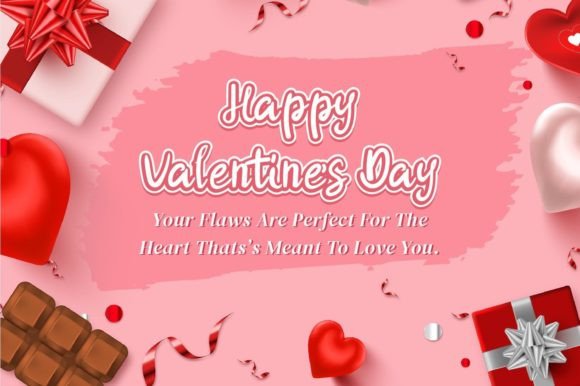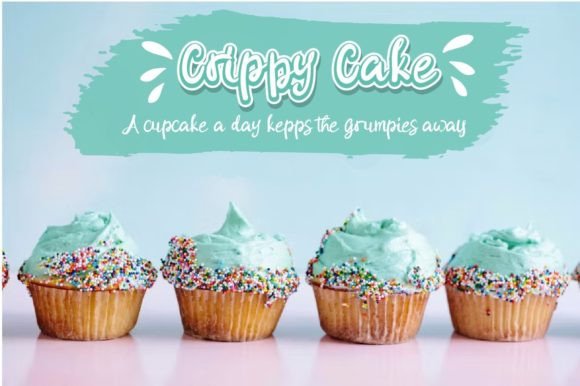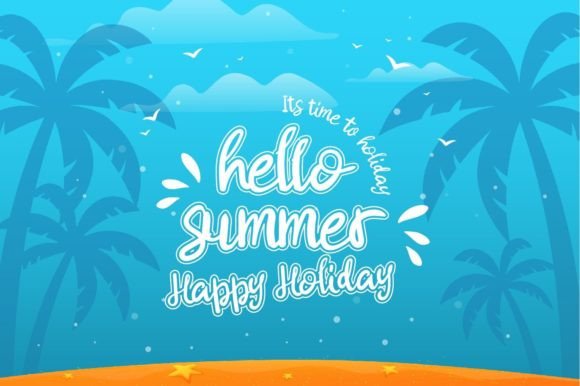
Introduction to Shellya Cristin Font
Shellya Cristin is a Modern script font, that will be suitable for any projects such as logos, branding projects, homeware designs, product packaging, mugs, quotes, posters, shopping bags, t-shirts, book covers, name cards, invitation cards, greeting cards, label, photography, watermark, special events, and all your other lovely projects that need beautiful handwriting taste.
Key Features of Shellya Cristin Font
Why Choose Shellya Cristin Font?
Shellya Cristin Font offers exceptional quality and versatility, making it a valuable addition to your design toolkit. Whether you’re creating for personal projects or commercial use, Shellya Cristin Font delivers professional results.